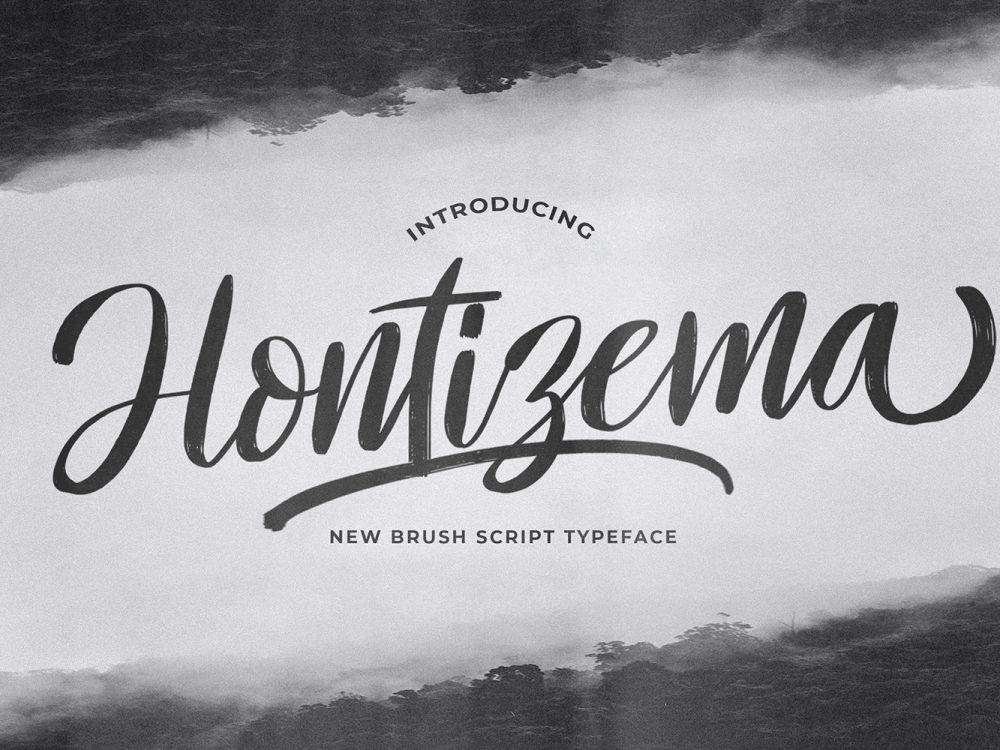
Hontizema Free Font
Hontizema Free Font is an interesting elegant handwritten typeface that mimics the writing of a brush and sets itself apart from other fonts in a modern style. This font is very well suited for various projects that require a scripted modern curly handwritten font. Use this font to create memorable branding projects, logos, wedding designs, social media posts, advertisements, product packaging, product designs, label, photography, watermark, invitation, stationery, and more. If you like it don’t forget to check out the full version.